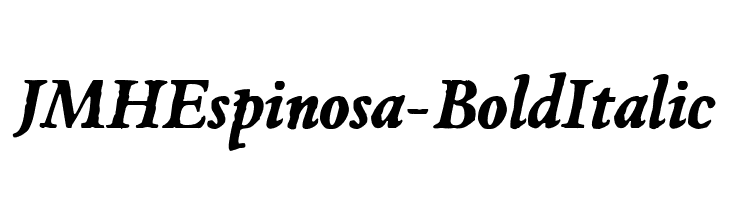
A bold, italic font with dynamic and flowing letterforms, perfect for expressive designs.
Expressive italic font with flowing, cursive letterforms and a handwritten feel.
A bold, hand-drawn font with a vintage, textured appearance.